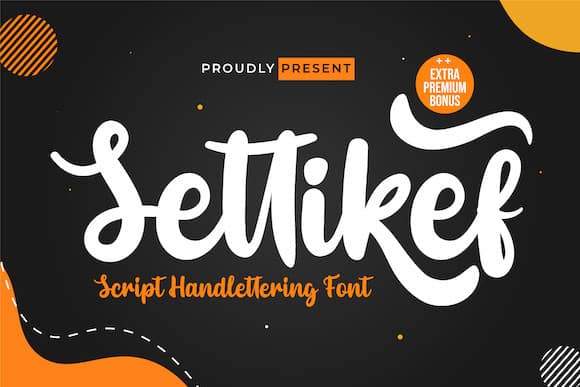
Settikef Script Font
Settikef Script Font is great for you to use as a title in your designs as well as great for writing names and words. and to be sure this font is not only limited to that purpose but also very special for every need of your project, be it a formal or non-formal project, this font is still beautiful and elegant. Start creating awesome designs with this font!
Settikef Script Font also offers the beauty of abstract typography harmony for a wide variety of design projects, including digital natural handwriting for designs, quote designs, for social media business designs, advertisements, trademarks, food and beverage promotion banners, text, posters, a signature, and all designs require handwriting or whatever design you want.